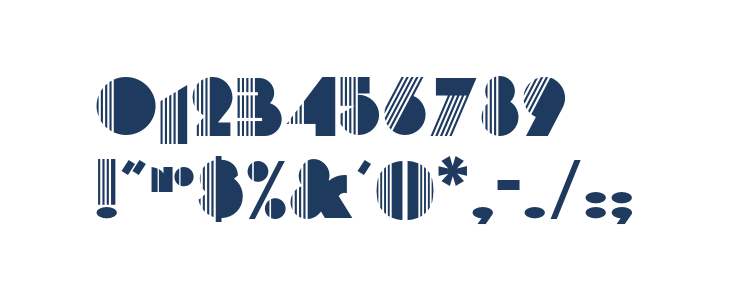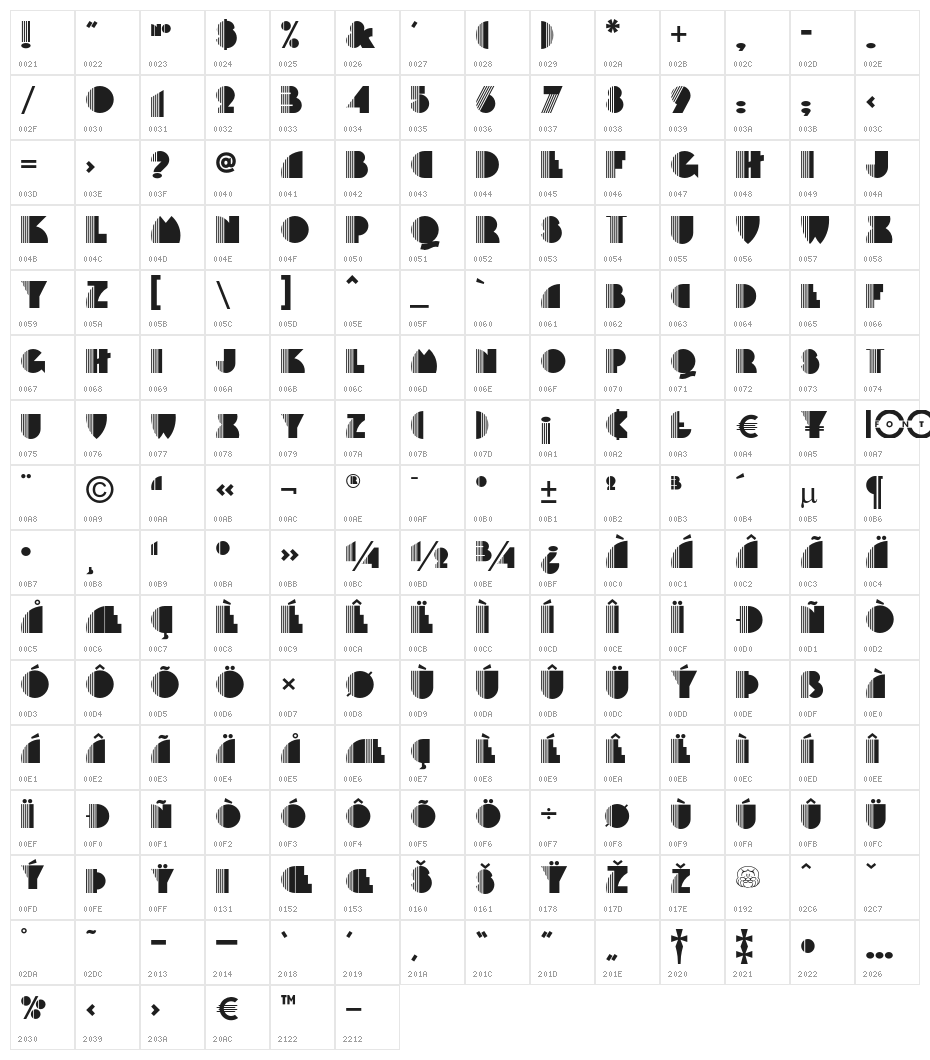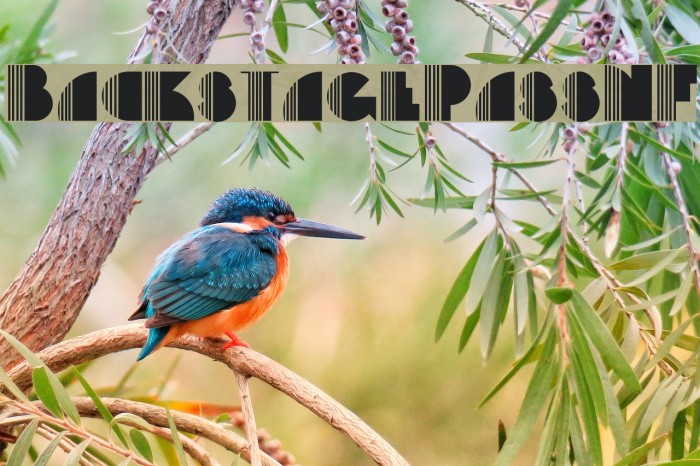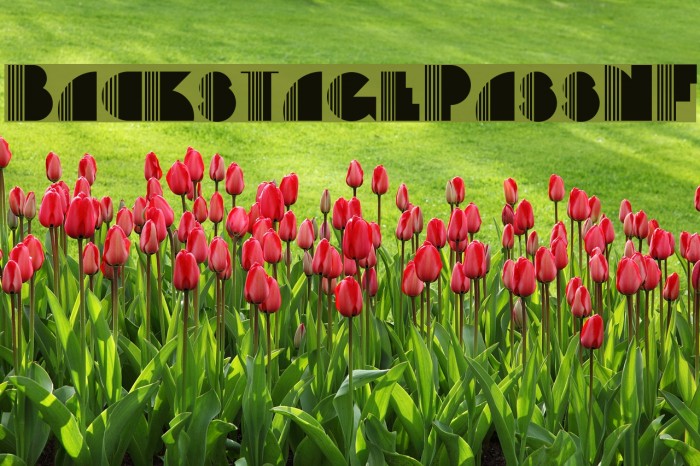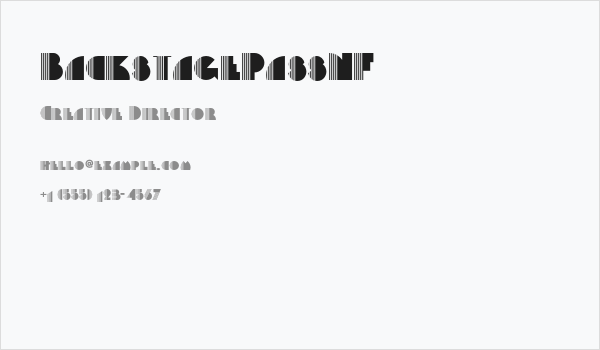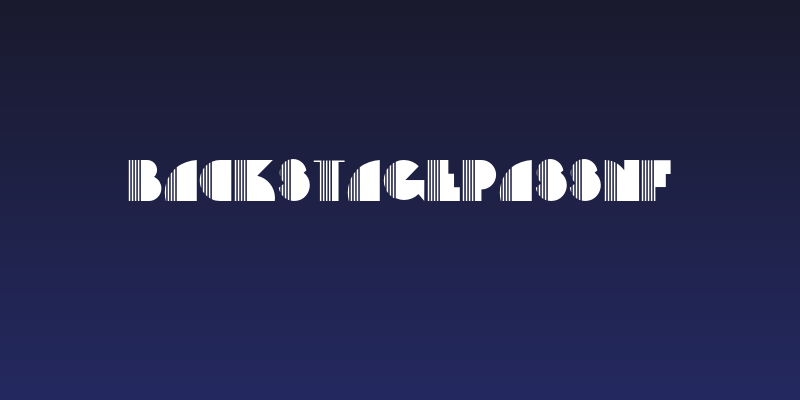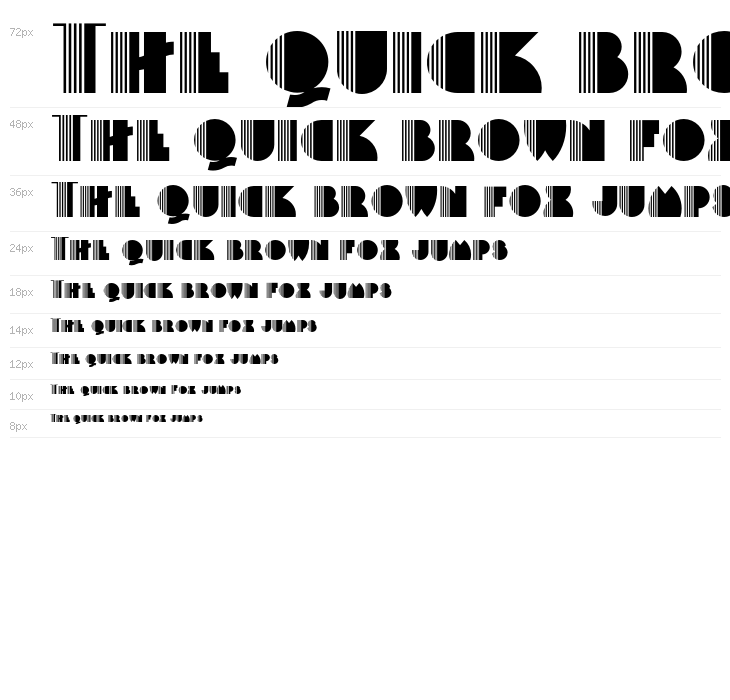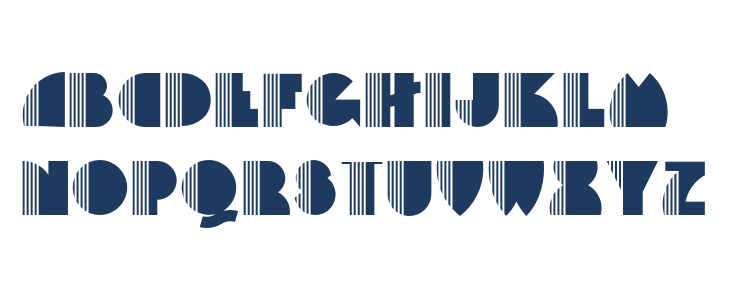
BackstagePassNF Font
BackstagePassNF Description
This font features a bold and striking design with a unique blend of geometric shapes and vertical lines. The uppercase and lowercase letters are crafted with a combination of solid and striped patterns, creating a dynamic visual effect. The numbers and special characters follow the same design principle, ensuring consistency throughout. The font's distinct style makes it stand out, offering a modern and artistic appeal that captures attention. Its boldness and decorative elements make it suitable for projects that require a strong visual impact.
| Proposed Projects | Ideal for music album covers, event posters, branding for creative industries, and modern art installations. |